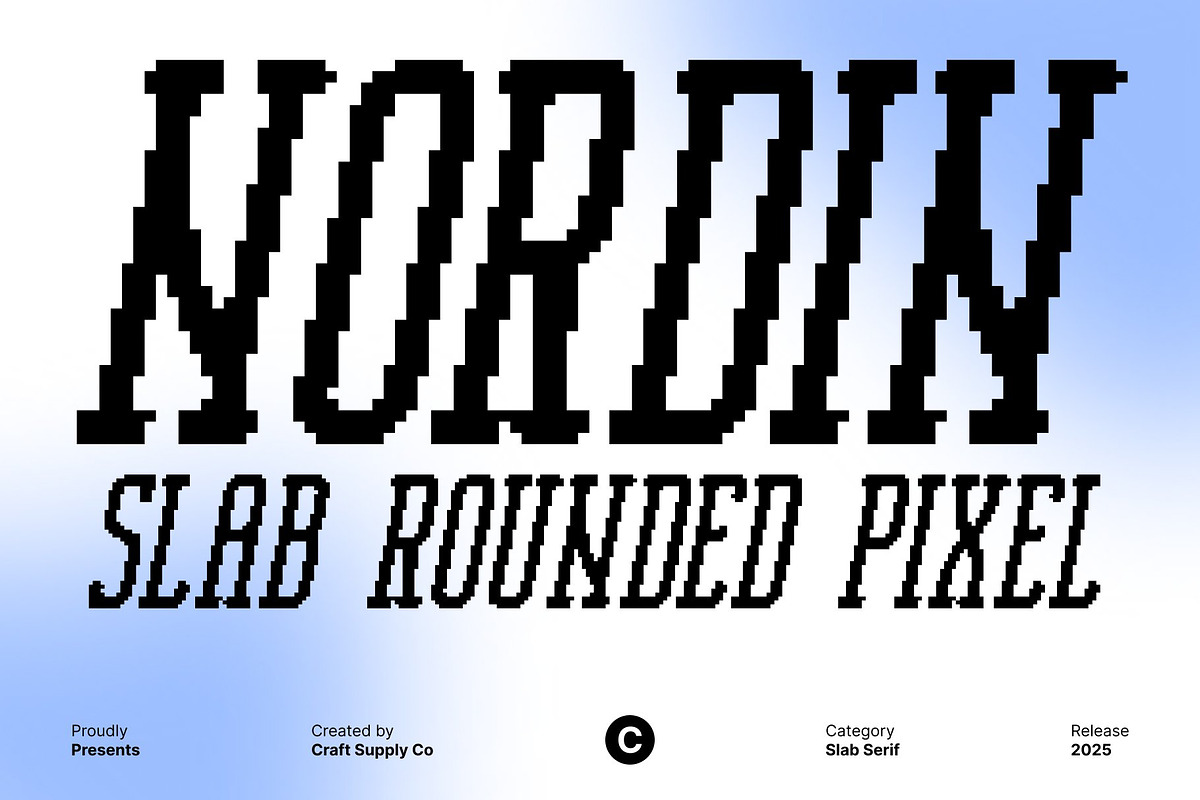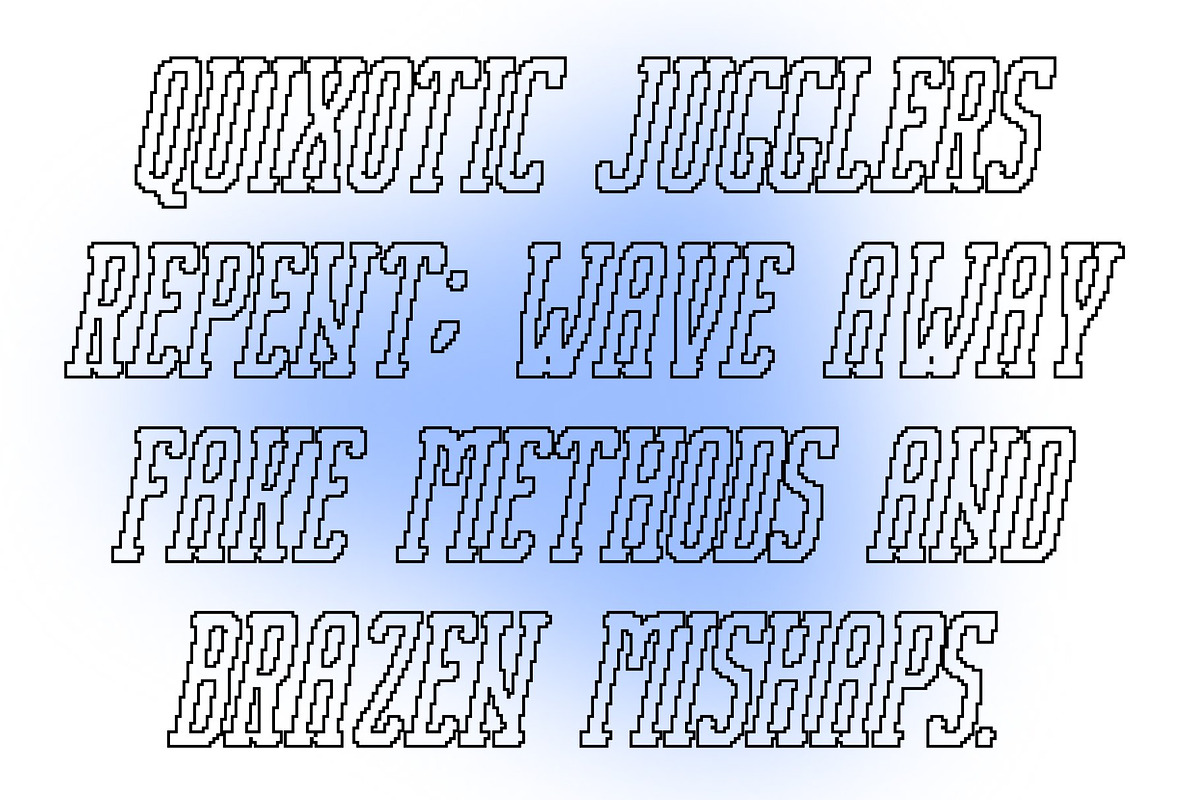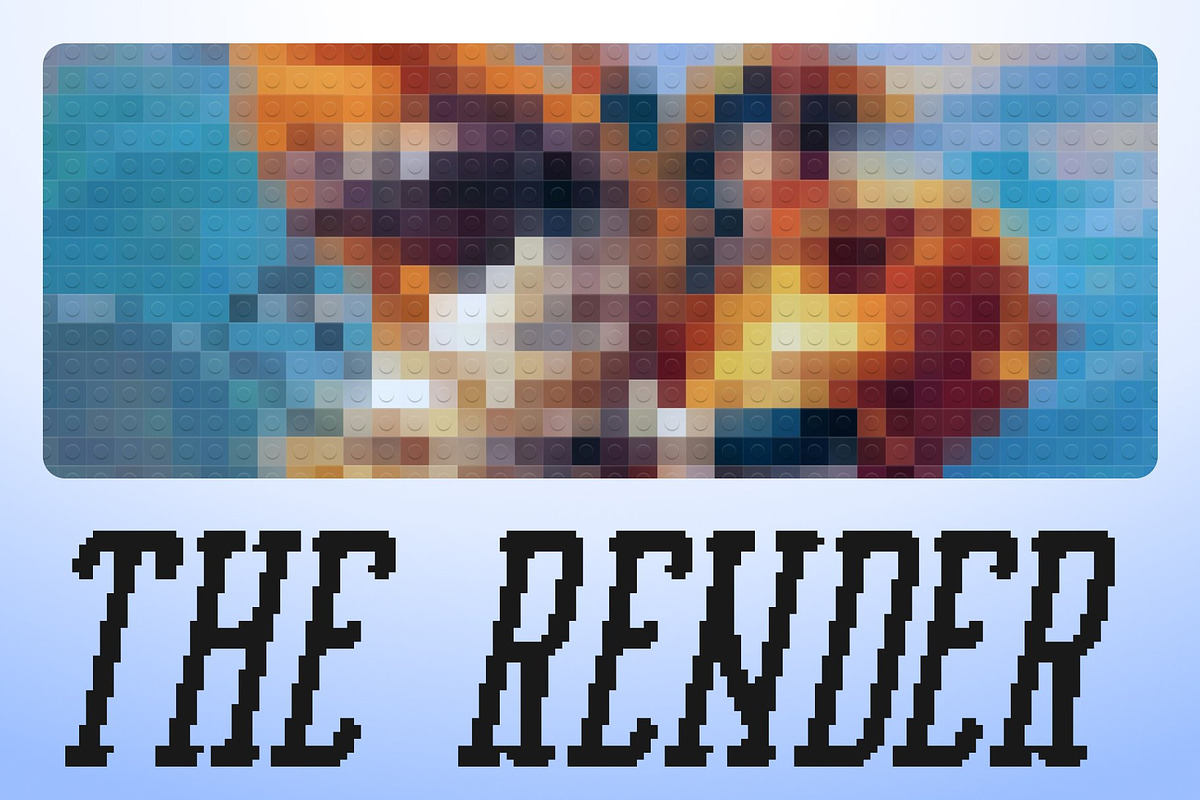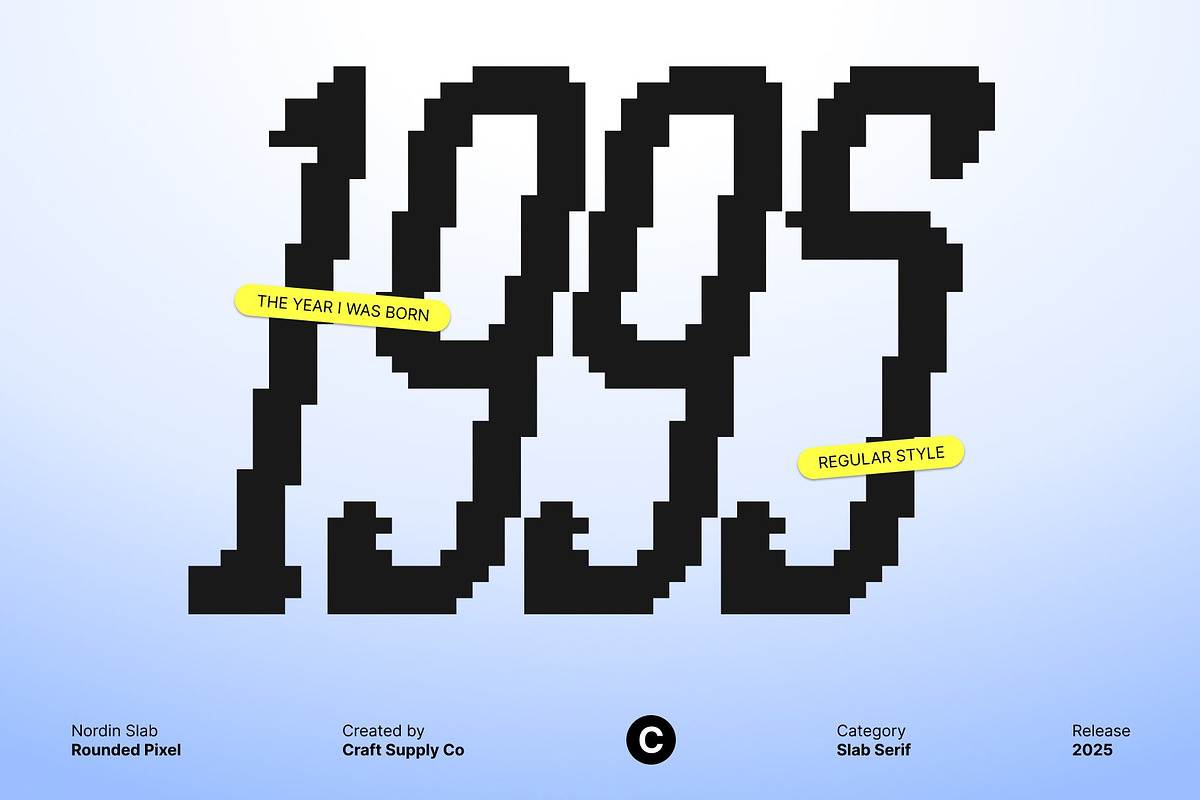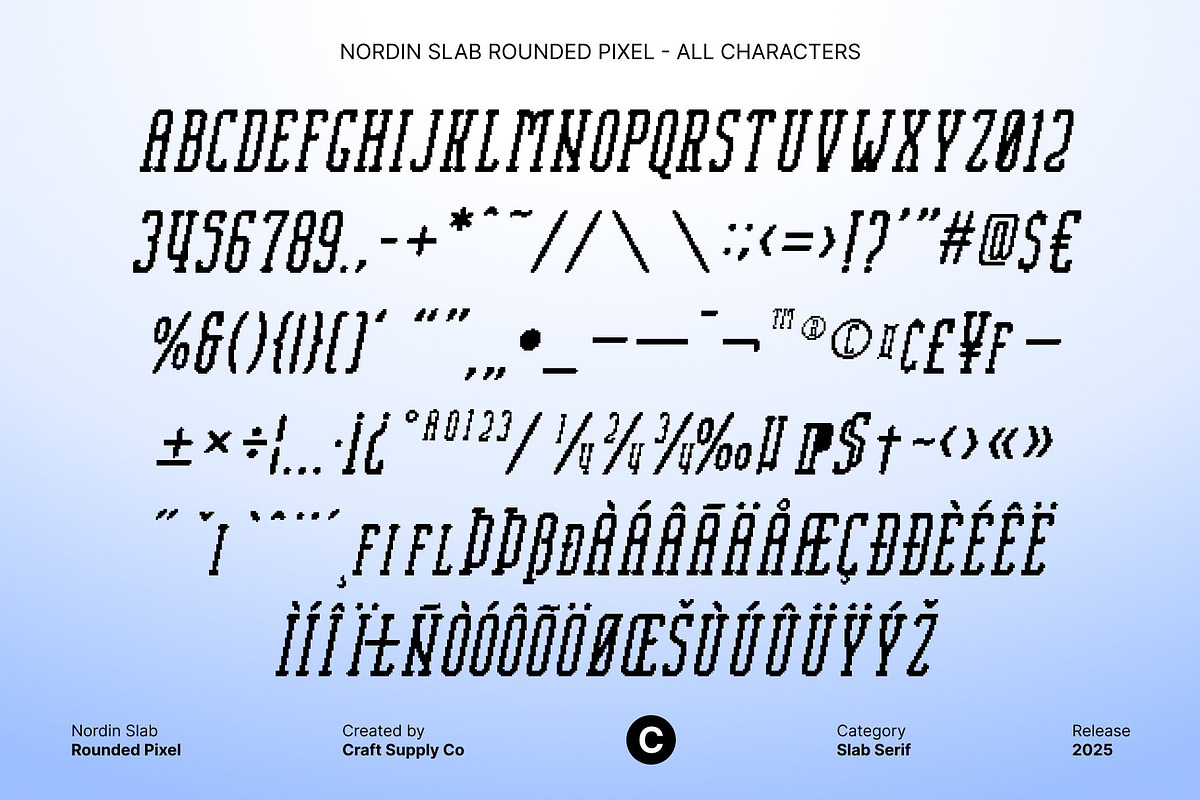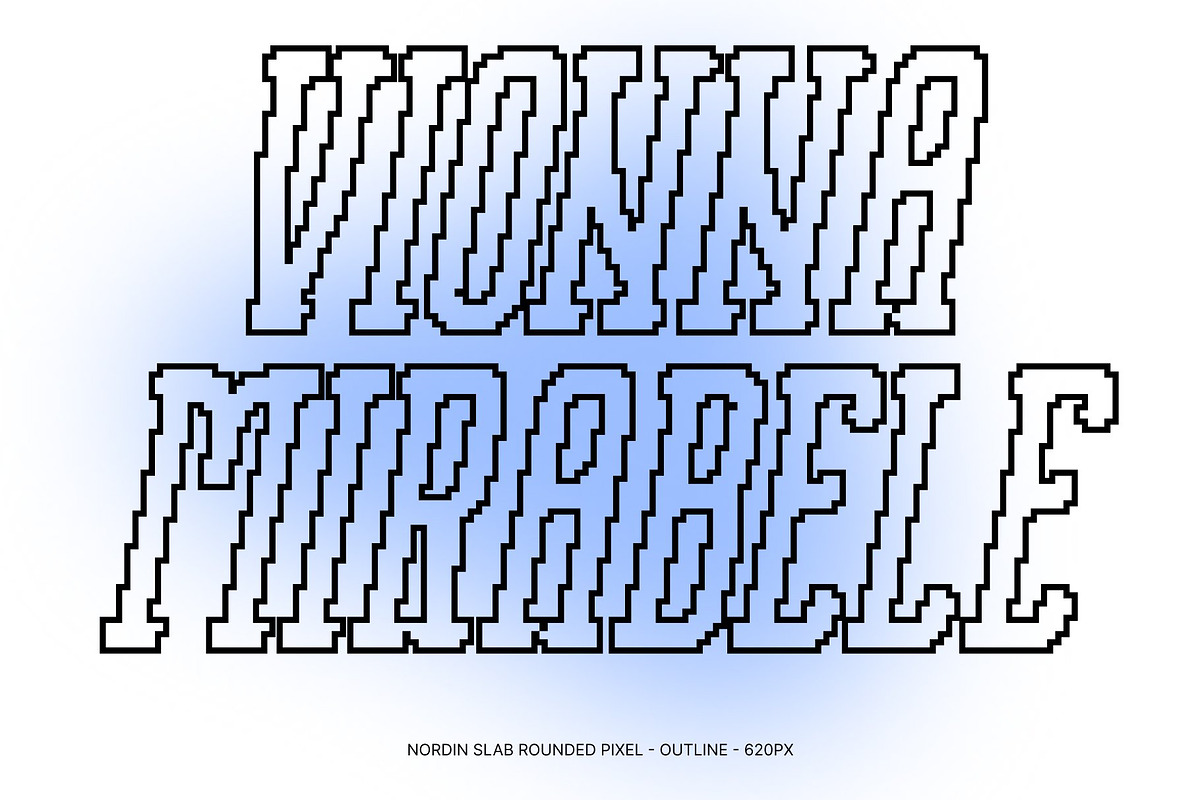
Nordin Slab Rounded Pixel
Nordin Slab Rounded Pixel – Bold Slab Serif with Modern Pixel Style
A Strong and Assertive Typeface for Powerful Visual Impact This is a commanding slab serif font designed to deliver strength, clarity, and character in every letter. With bold strokes and sturdy forms, this typeface captures attention instantly, making it ideal for designs that demand presence and authority.
Rounded Slab Design for a Balanced, Versatile Look What sets this font apart is its seamless blend of strength and softness. The slab serif construction adds weight and solidity, while the rounded corners provide a friendly, approachable touch. This combination creates a visually balanced style strong enough for bold headlines yet smooth enough for contemporary branding.
Pixel Effect That Adds Style and Distinctive Personality The pixel effect enhances its charm by introducing a stylish digital texture that modernizes the classic slab serif feel. The subtle pixelation brings a trendy 8-bit character, enriching the typeface with uniqueness and creative flair.
Ideal for Headlines, Posters, Logos, and High-Visibility Designs It’s perfect for headlines, posters, advertisements, billboards, and branding projects that aim to convey confidence and style. Its strong slab foundation paired with the modern pixel effect makes it highly versatile capable of fitting vintage themes, modern layouts, sturdy industrial designs, or digital-themed visuals with equal success.